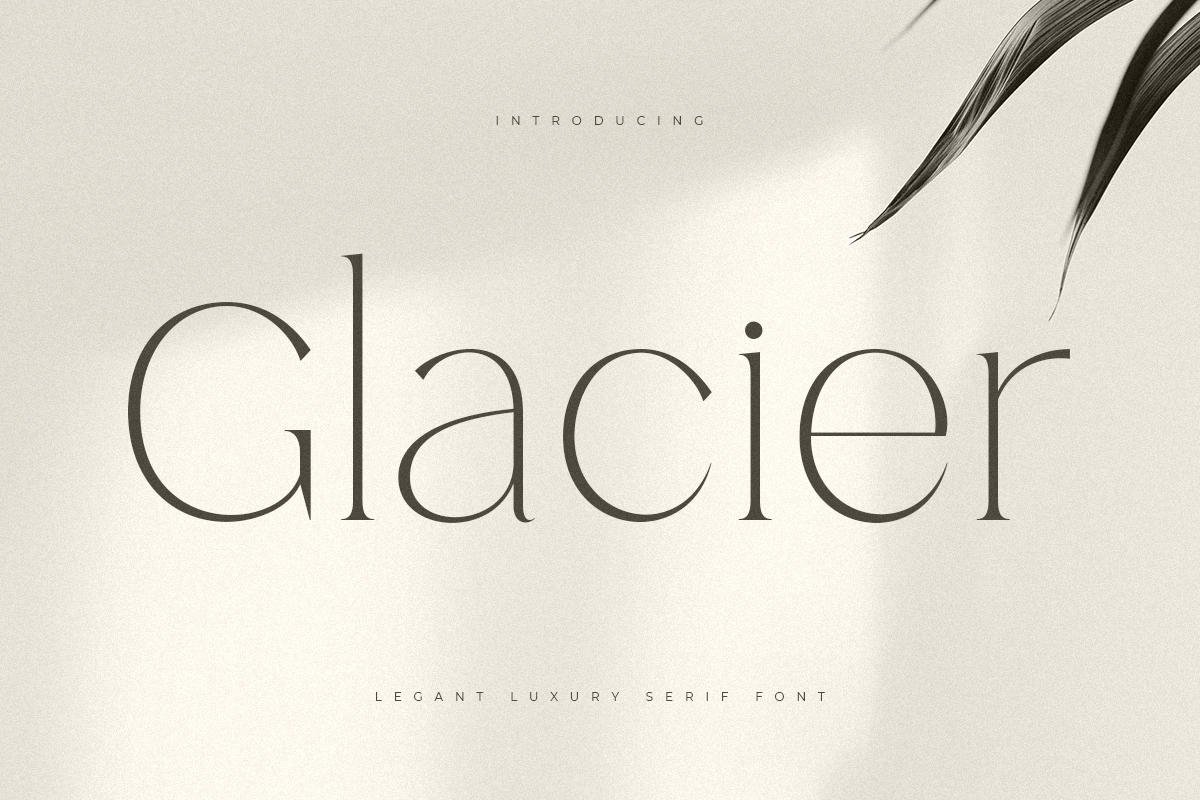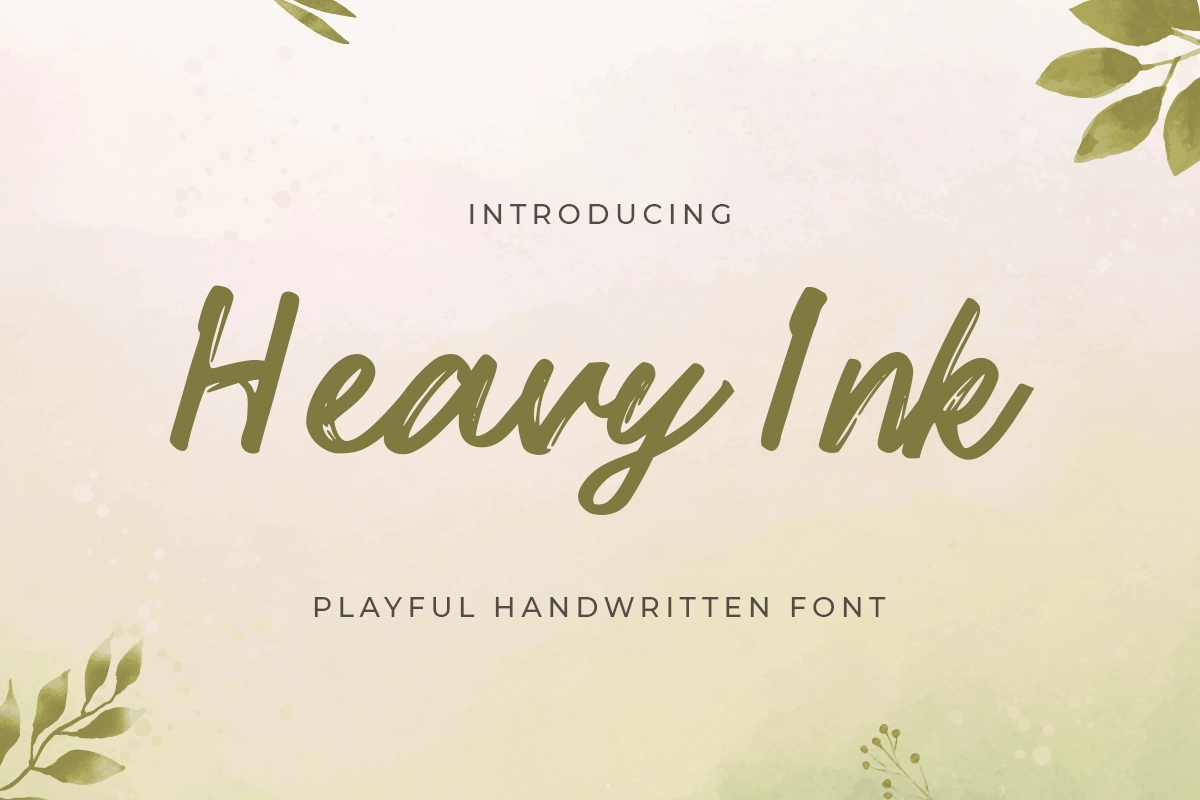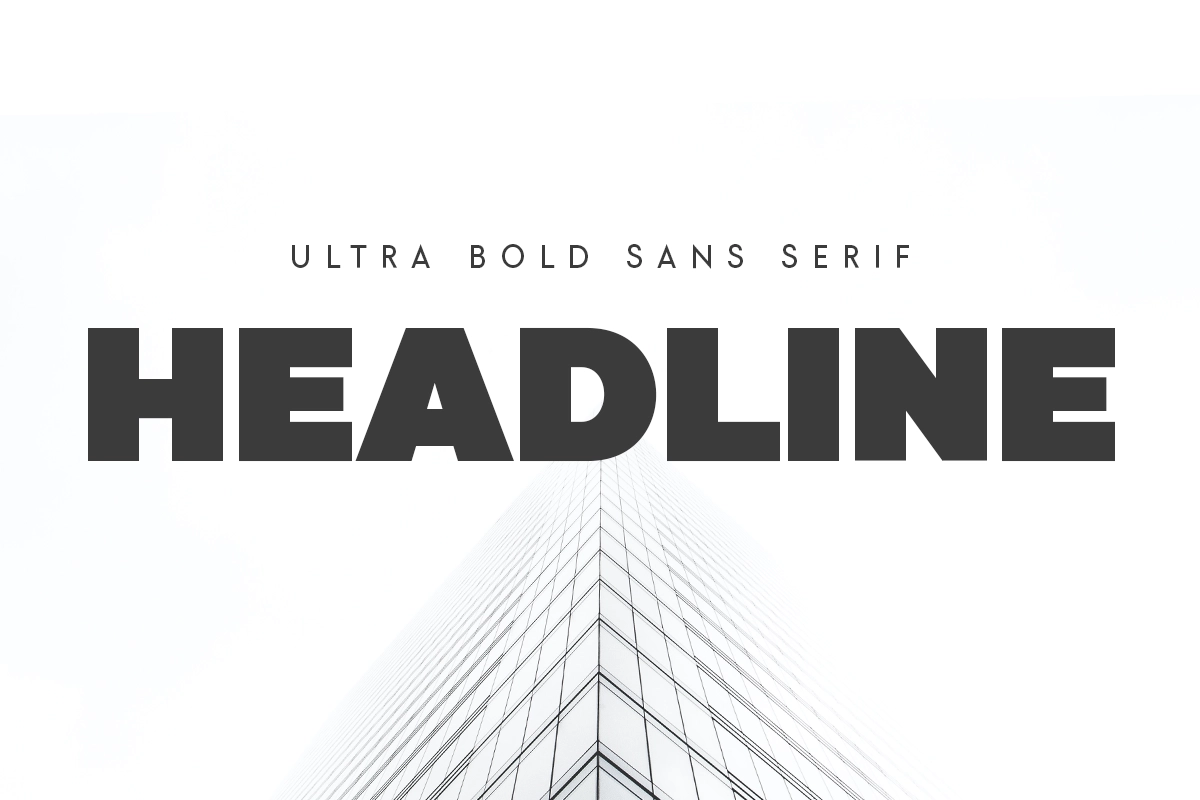
December 2026 Design Ideas, Holidays, and Font Inspiration
December 2026 is a powerful and emotionally rich month for seasonal design, offering exciting opportunities for graphic designers, brand teams, and content creators to create memorable, festive, and high-impact campaigns. With key moments like Christmas and New Year’s Eve, December presents a wide creative range, from warm and decorative holiday visuals to bold promotional content and forward-looking designs, making it an ideal time to explore expressive typography, rich color palettes, and visually striking compositions that feel both meaningful and visually unforgettable.
December is the emotional peak of the year. After the reflective tone of November, this month shifts into celebration, generosity, and meaningful connection. It carries a rich and expressive energy, making it one of the most powerful moments for visual storytelling and branding. For designers, content creators, and brands, December 2026 is an opportunity to create visuals that feel both memorable and impactful. Some of the most important moments to highlight are Christmas on 25 December 2026 and New Year’s Eve on 31 December 2026.
For designers, December offers a visually rich playground. It is a month where you can move beyond minimalism and explore more expressive compositions—layered textures, glowing effects, and decorative typography. At the same time, clarity and intention remain essential. The strongest campaigns are not just festive, but also well-structured and emotionally resonant.
Why December?
December is where storytelling meets celebration. Audiences are more emotionally engaged, making it easier for brands to connect through meaningful visuals. This makes it an ideal time to create campaigns that feel warm, personal, and visually distinctive.
From a design perspective, December supports richer color palettes and more expressive typography. Traditional festive colors like red, green, gold, and white dominate, but modern interpretations often introduce darker tones with bright accents for a more contemporary feel. The key is balance—combining decorative elements with clean layouts to maintain readability.
For lifestyle, retail, and digital brands, December is also the peak of campaign activity. From holiday promotions to year-end reflections, every visual needs to stand out while still aligning with the seasonal mood. Typography becomes a crucial tool here, helping define whether a campaign feels elegant, playful, luxurious, or bold.
Best Alternative Fonts For December
Glacier - Elegant Luxury Serif Font
Glacier - Elegant luxury serif font
Glacier is an elegant luxury serif font designed to bring a refined and timeless feel into your visuals. With its graceful letterforms and premium aesthetic, this typeface is perfect for Christmas campaigns, invitations, and high-end branding. It helps create a warm yet sophisticated atmosphere that aligns perfectly with festive storytelling.
Heavy Ink - Playful Handwritten Font
Heavy Ink is a playful handwritten font that adds personality and warmth into your designs. Its casual and expressive strokes make it ideal for greeting cards, quotes, and social media content. This typeface works especially well for creating a friendly and emotional connection during the holiday season.
HEADLINE - Ultra Bold Sans Serif
HEADLINE is an ultra bold sans serif font built for impact. Its strong and confident structure makes it perfect for promotional campaigns, discount banners, and high-visibility content. This typeface ensures your message stands out clearly, especially in crowded December marketing visuals.
Mikela - Modern Decorative Logo Font
Mikela is a modern decorative logo font that brings a festive and stylish touch into your designs. Its unique character makes it ideal for headlines, branding, and holiday-themed visuals. This typeface helps elevate the overall look with a distinctive and memorable identity.
BYTES - Modern Futuristic Scifi Font
BYTES is a modern futuristic scifi font designed to create a forward-looking and innovative feel. It is perfect for New Year campaigns, countdown visuals, and digital branding that focuses on the future. This typeface adds a modern edge that contrasts beautifully with traditional festive elements.
FAQ
Q: What are the best December design themes for 2026?
A: The most effective themes include festive Christmas visuals, emotional year-end reflections, bold promotional campaigns, and New Year transition content. Each theme offers a different visual direction, from warm and decorative to clean and modern.
Q: What fonts work best for December campaigns?
A: A combination of elegant serif, handwritten, bold sans serif, decorative, and futuristic fonts works best. This mix allows designers to create both emotional and high-impact visuals within the same month.
Q: What colors work best for December campaign design?
A: Classic festive colors like red, green, gold, and white are widely used. For a more modern approach, darker tones such as black combined with gold or bright accents can create a more striking and contemporary look.
December 2026 is a defining moment in the design calendar. It combines celebration, reflection, and anticipation into one cohesive visual narrative. Christmas brings warmth and emotional storytelling, while New Year’s Eve introduces energy and forward-looking visuals.
For designers, this is the time to create work that not only captures attention but also leaves a lasting impression. By combining expressive typography, intentional color choices, and thoughtful composition, December campaigns can feel both impactful and meaningful.
If approached with the right balance, December is not just about festive visuals—it becomes a moment to create designs that people remember.